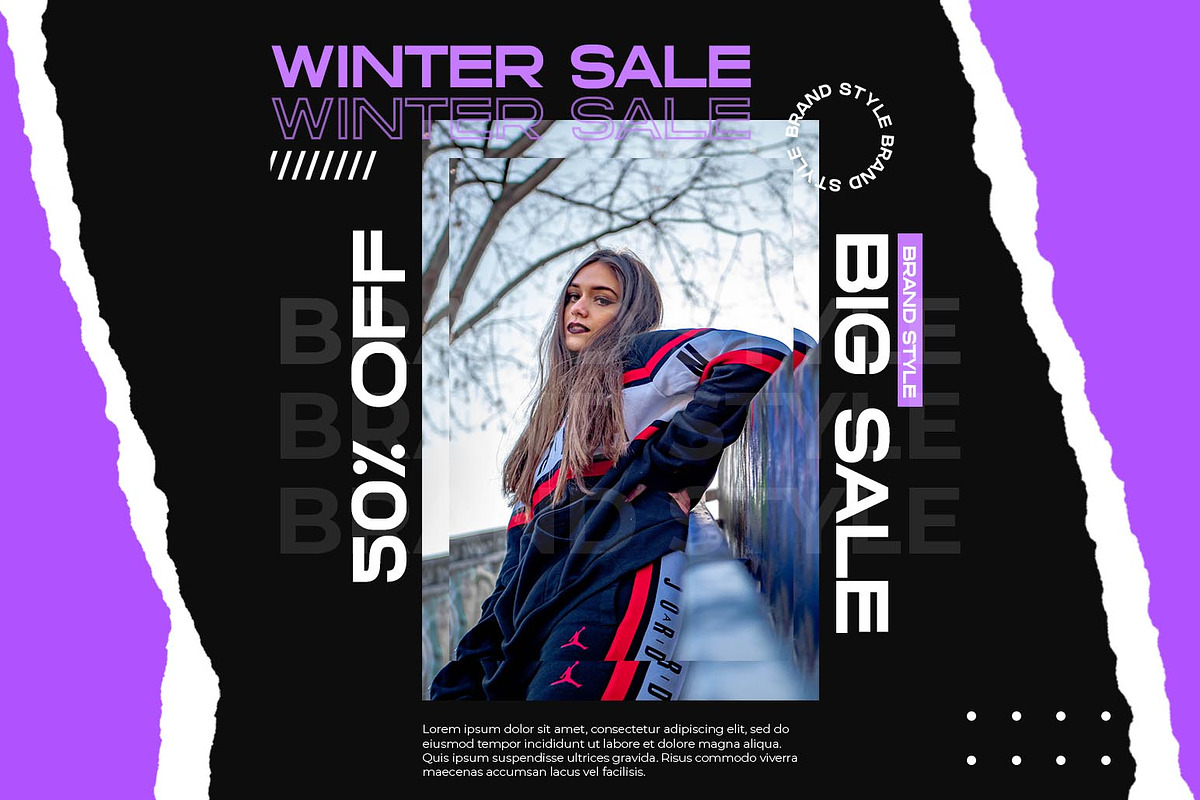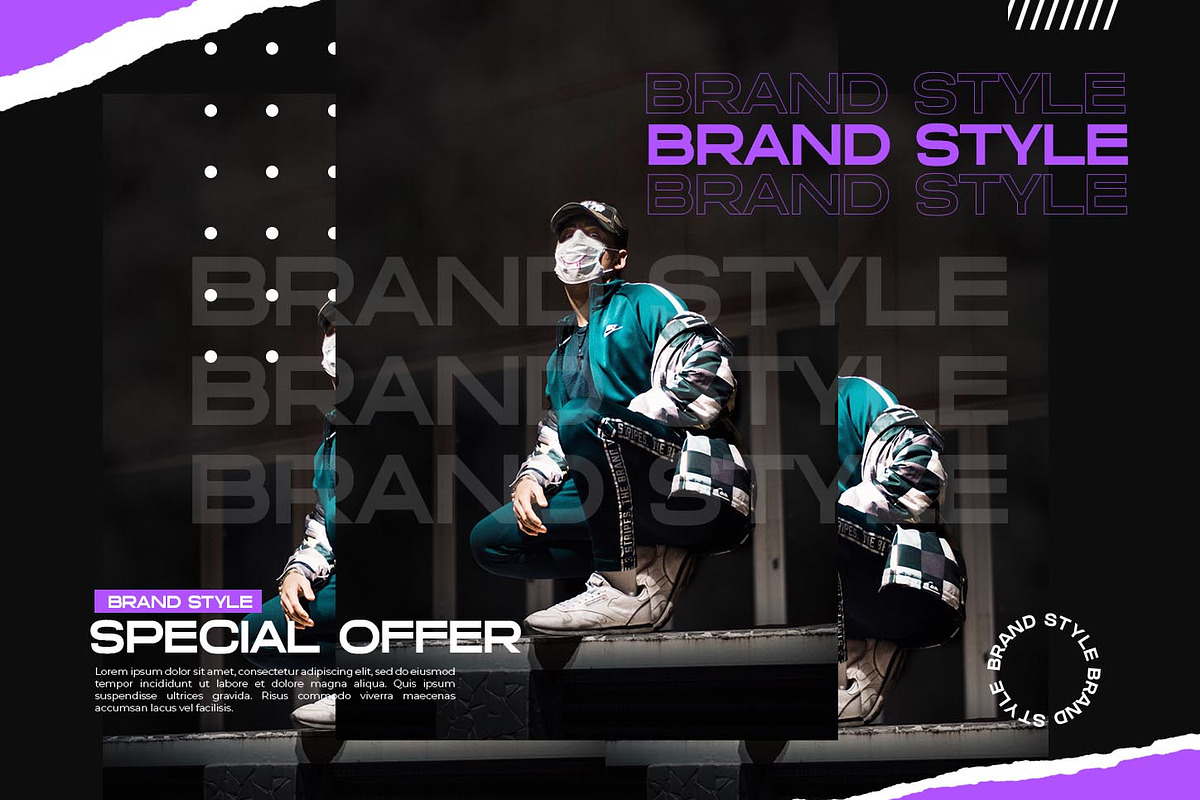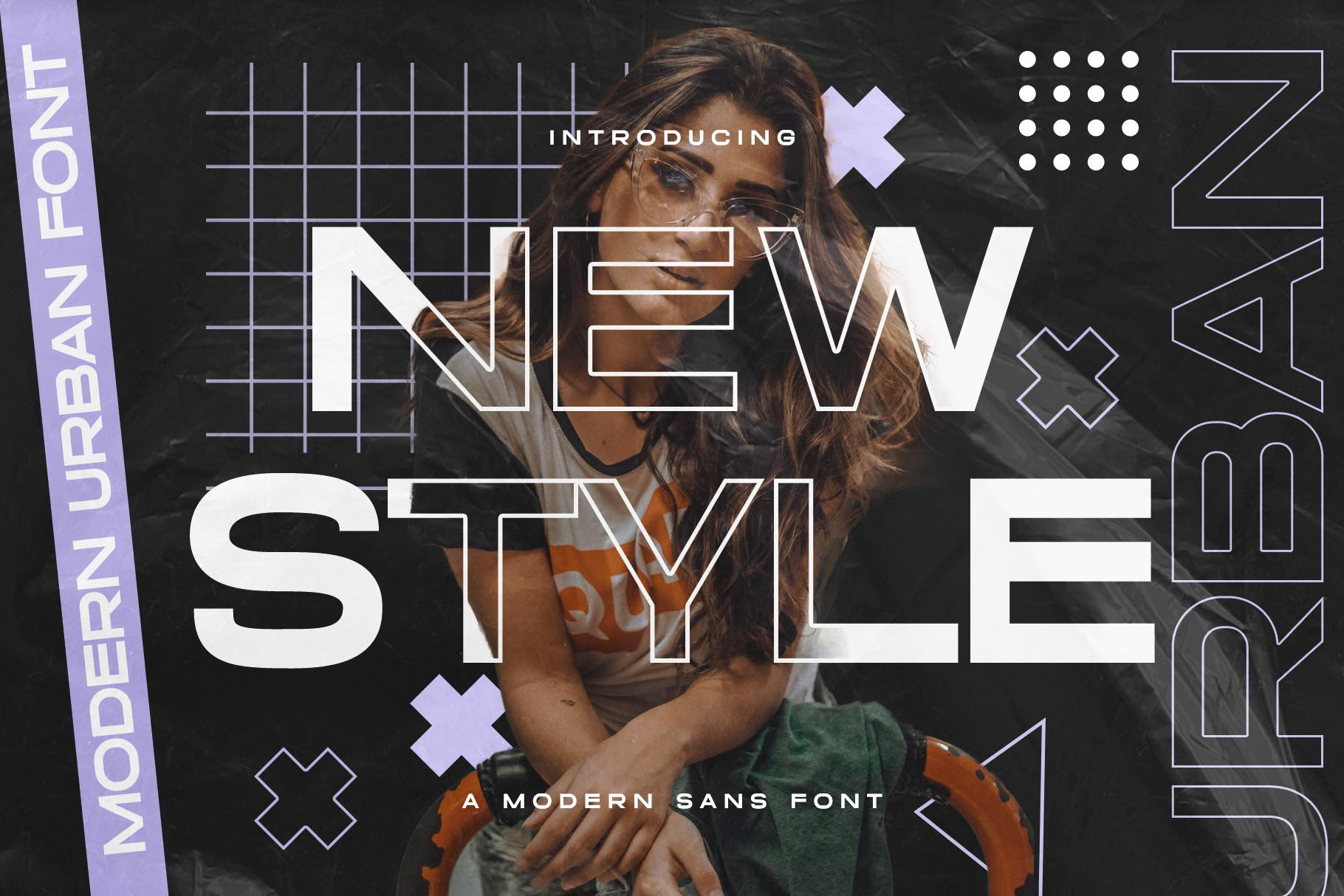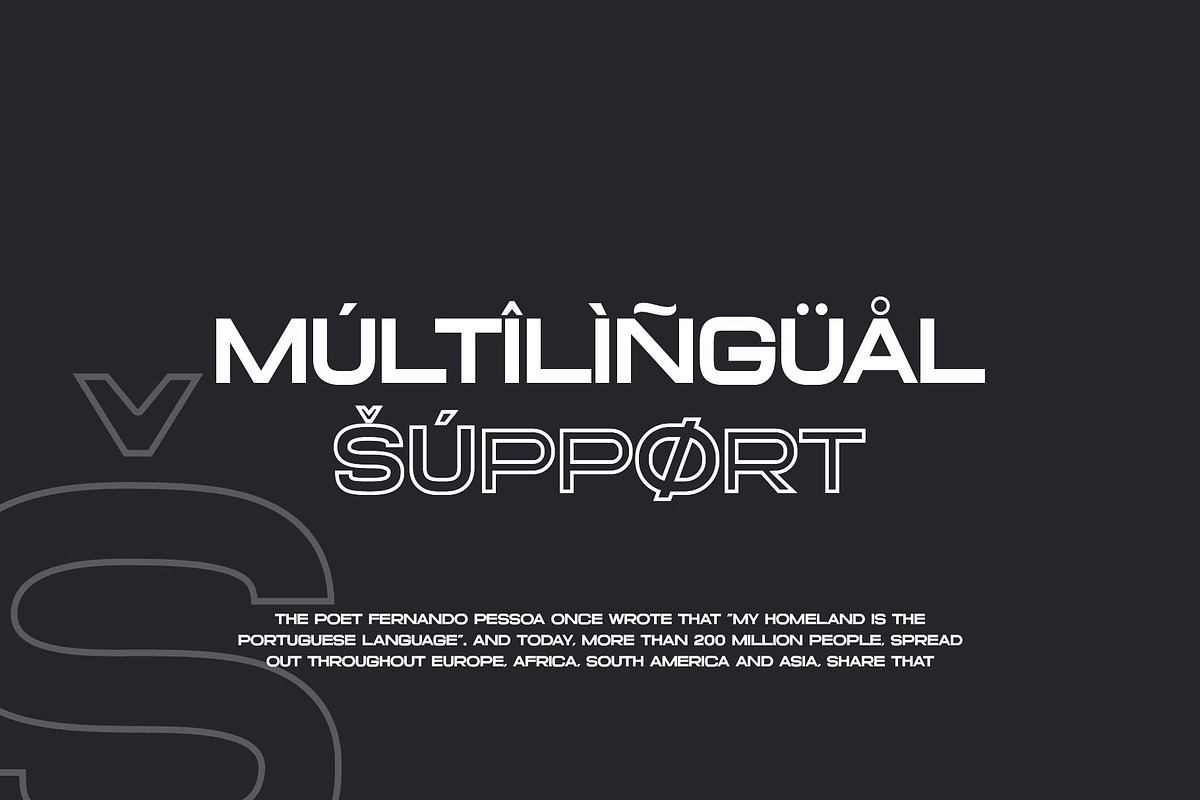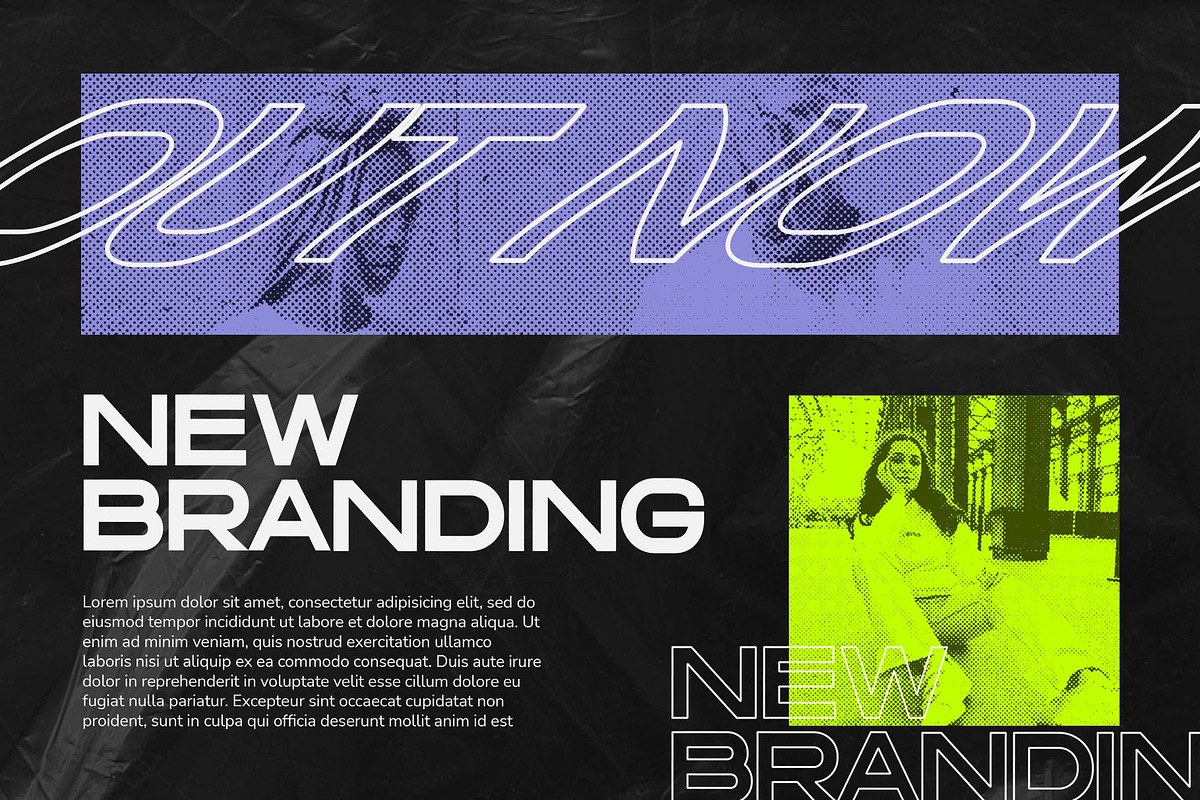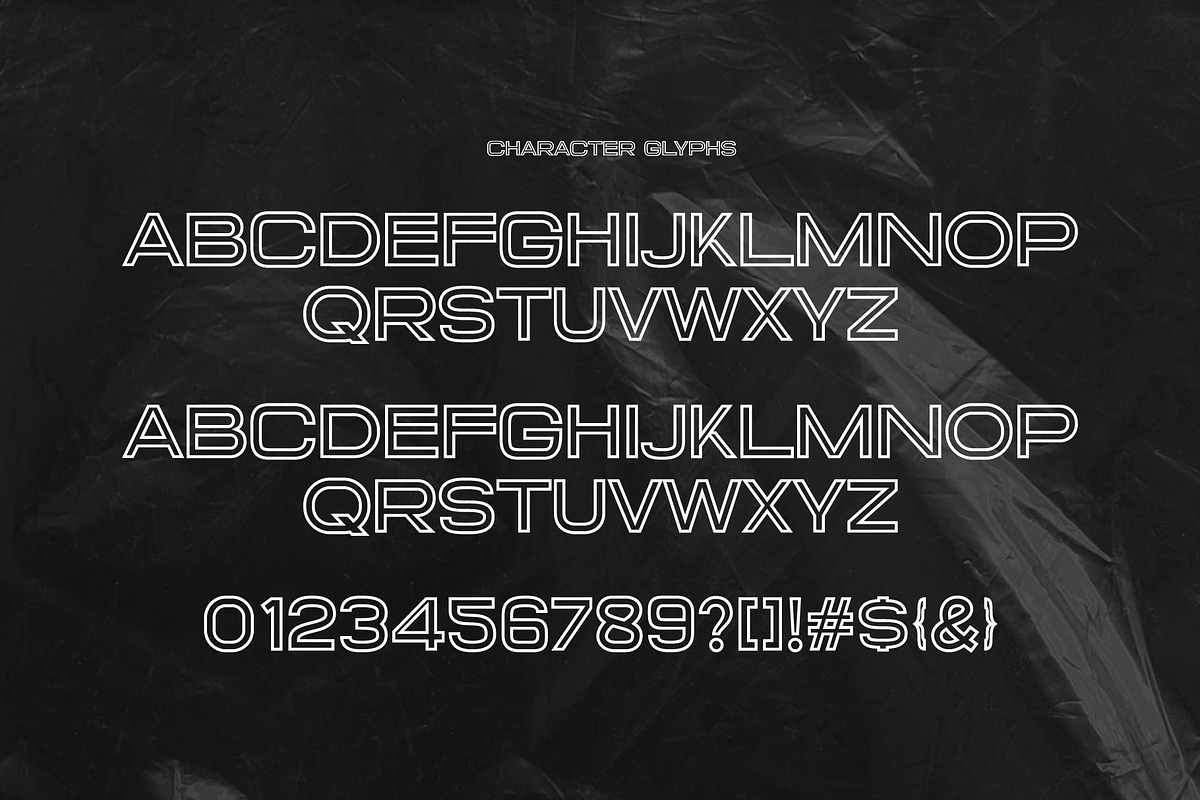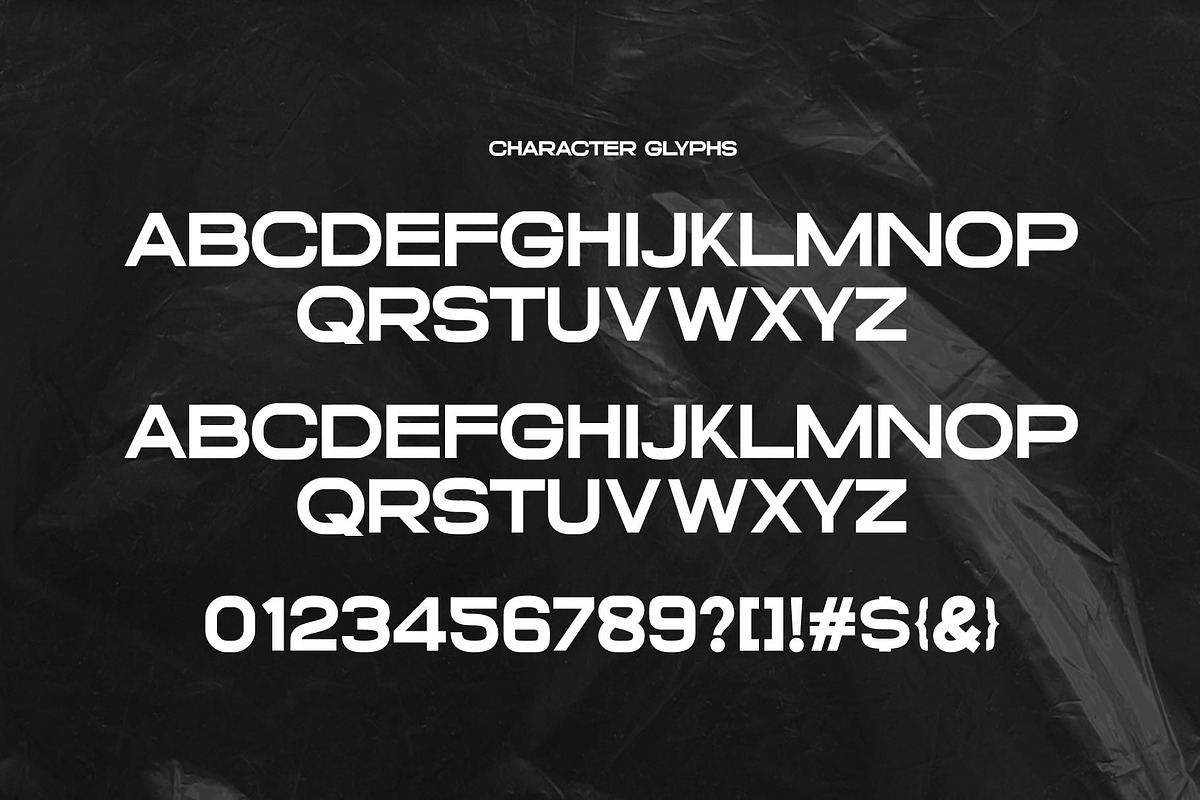
New Expanded Opentype Font
New Style Modern Sans Opentype Font inspired by the famous minimalist logo perfect for the purposes of designing templates, brochures, videos, advertising branding, logos, invitation, layout design, elegant crafting, beauty design and more.
- 2 Font Included ( Regular & Outline )